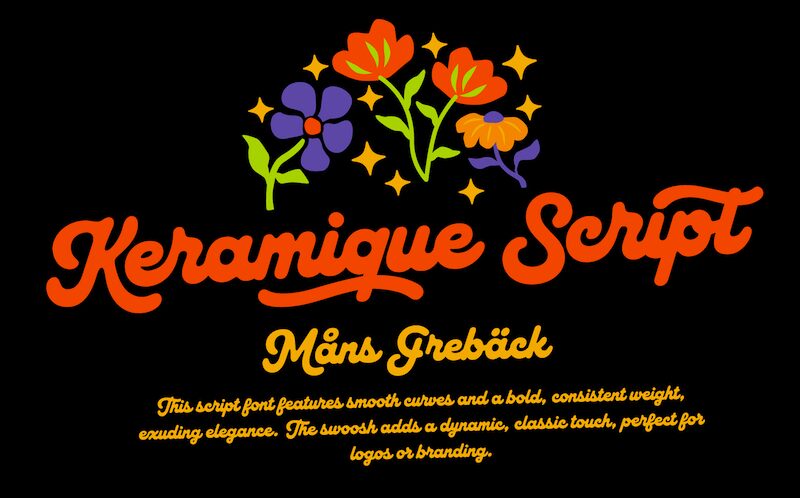
Keramique Script font
Keramique Script
Keramique Script is a friendly cursive font designed with a smooth feel and playful look. It is perfect for various applications, such as menus in rustic diners or for stamping on your homemade ceramics.
To create beautiful swashes, use underscores (_) to underline any word. For example, you can write "Hea_rt" to create a charming effect. Additionally, using multiple underscores allows you to make longer underlines. For instance, "Hand___made" will give your text a unique flair.